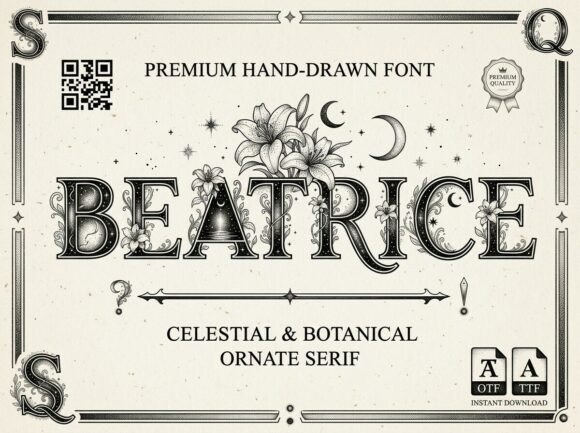
Introducing Beatrice Font: A Stunning Decorative Display Font
Are you tired of using the same old fonts for your creative projects? Look no further than Beatrice Font, a breathtaking decorative display font designed to turn heads. With its unique artistic elements and strong visual personality, this font is perfect for creators who want to break away from the ordinary and make a statement.
What Makes Beatrice Font Special?
Beatrice Font is a versatile and sophisticated font that is perfect for a variety of creative applications, including bold headlines, artistic logos, and creative packaging. Its stunning design and professional finish make it an ideal choice for designers and crafters who want to add a touch of elegance and sophistication to their work.
Key Features of Beatrice Font
- Unique Artistic Elements: Beatrice Font features unique artistic elements that set it apart from other fonts. Its intricate details and decorative flourishes make it a true work of art.
- Strong Visual Personality: This font has a strong visual personality that demands attention. Its bold and eye-catching design makes it perfect for headlines, logos, and other creative applications.
- Versatile: Beatrice Font is versatile enough for a variety of creative projects, including bold headlines, artistic logos, and creative packaging.
- Professional Finish: This font maintains a professional and polished finish, making it perfect for designers and crafters who want to create high-quality work.
Why Choose Beatrice Font?
Beatrice Font is the perfect choice for designers and crafters who want to add a touch of elegance and sophistication to their work. Its unique artistic elements, strong visual personality, and versatility make it an ideal choice for a variety of creative projects.
Perfect for:
- Headlines: Beatrice Font is perfect for creating bold and eye-catching headlines that demand attention.
- Logos: This font is ideal for creating artistic logos that showcase your brand’s personality and style.
- Packaging: Beatrice Font is perfect for creative packaging that requires a touch of elegance and sophistication.
Tips for Using Beatrice Font
Here are some tips for using Beatrice Font effectively:
- Use it sparingly: Beatrice Font is a bold and eye-catching font, so use it sparingly to avoid overwhelming your design.
- Pair it with other fonts: Pair Beatrice Font with other fonts to create a unique and visually appealing design.
- Experiment with different sizes: Experiment with different sizes to find the perfect fit for your design.
Beatrice Font is a stunning decorative display font that is perfect for designers and crafters who want to add a touch of elegance and sophistication to their work. Its unique artistic elements, strong visual personality, and versatility make it an ideal choice for a variety of creative projects. With its professional finish and universal compatibility, Beatrice Font is a must-have font for any creative project.